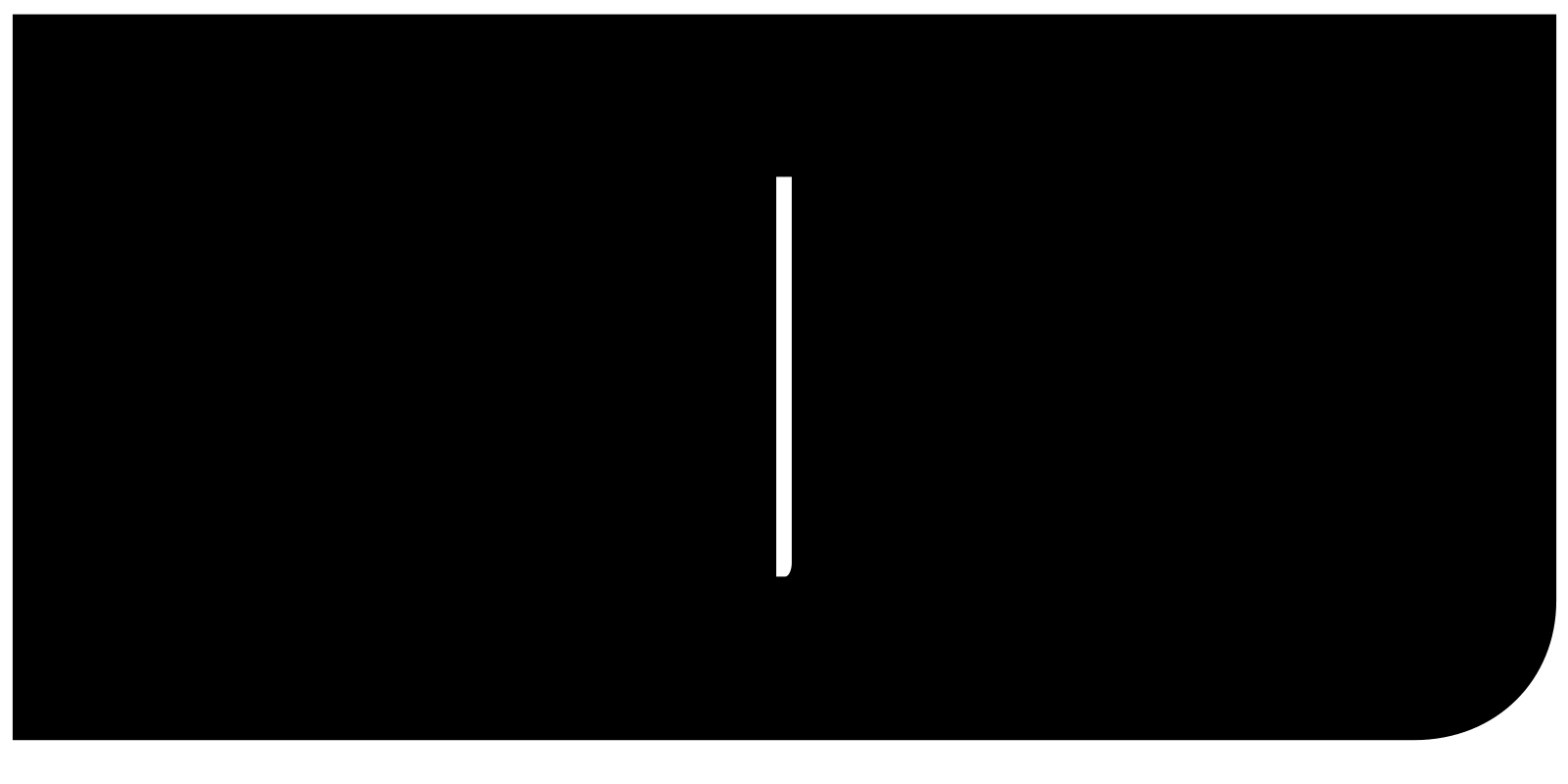
Dump Didot
Cut Caslon
Trash Times
Reject Rotis
Abandon Arial
Hurl Helvetica
Forsake Futura
Chuck Clarendon
Give up Garamond
Renounce Rockwell
FIT
is all you need!
Fit is designed to fit
Just about any text
Into just about any space
FIT is a hyper-stylized typeface designed with one thing in mind: filling up space with maximum impact.
To accomplish this task, I drew Fit as a variable font with an expansive range of widths, represented by the ten styles shown here. In between Fit’s ridiculously narrow and ludicrously wide extremes, you will find a family rich in panache and expressive potential.
Fit is anchored by its white shapes: regardless of width, the space within the letters and the space between the letters always remains the same. These white shapes cut dramatically through the letterforms, fusing them into a mesmerizing network of black and white.
Since its publication in 2017, Fit has been expanded to Hebrew (by Oded Ezer), Armenian (by Gor Jihanian), Devanagari (by Kimya Gandhi) and Tamil (by Aadarsh Rajan), with more writing systems on the way. In 2024, I added lowercase and small caps, as well as new alternates and experimental axes also designed by Gor Jihanian.
dynamic!
Fit Kannada, designed by Taresh Vohra
Fit Kannada interprets the script’s complex conjuncts and vowel-sign formations through the modular squeeze of Fit’s visual grammar. Fit Kannada navigates the fine line between legibility, authenticity, and experimentation. Read the full story here »
Fit Arabic, designed by Sahar Afshar
Sahar Afshar adapted the design to the Arabic script, adeptly balancing Fit’s blocky simplicity with the architectural logic of Square Kufi. Fit Arabic translates the script’s interlocking, puzzle-like geometry into the bold, systematic world of the Fit family. Read the full story here »
Fit Tamil, designed by Aadarsh Rajan
In 2023, Aadarsh Rajan adapted the design to the Tamil script, adeptly balancing Fit’s blocky simplicity with the complexity of Tamil’s letterforms.
Fit Devanagari, designed by Kimya Gandhi
This Indic companion has taken Fit’s strict rules of construction, flipped some around, and translated others into a new design that is simultaneously ‘fitting’ of the Fit name, but also true to the history and expectation for Devanagari letterforms. Read the full story here »
Fit Armenian, designed by Gor Jihanian
Finding inspiration in Armenian gravestones he found during his travels in India, Gor Jihanian’s Armenian expansion plays with intense rhythms and interlocking forms. Read the full story here »
Fit Hebrew, designed by Oded Ezer
Oded Ezer adapted Fit’s rigid design to suit the needs of the Hebrew alphabet, taking into account the squareness of the letterforms and the direction in which they open. Fit Hebrew seamlessly mixes block and cursive forms, pushing the Hebrew alphabet to surprising extremes. See more here »
Difficult to read
BUT
Impossible to miss!
Fit is one of the first typefaces available in the OpenType variable font format. This format allows multiple font styles to coexist within a single file, which can greatly improve loading performance while providing easy access to Fit’s entire range of widths.
Fit works best when used a few words at a time at enormous sizes. It is not recommended for setting any copy that you actually want people to read. Please use Fit responsibly!